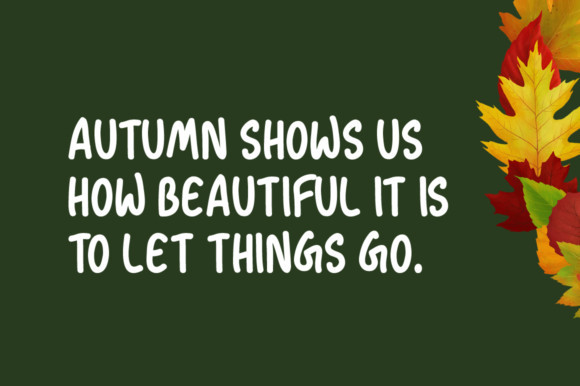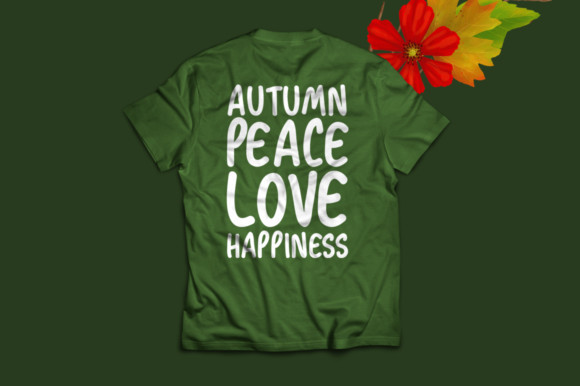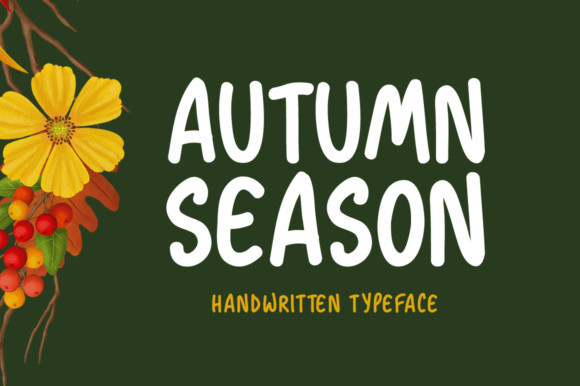
Autumn Season Font
Autumn Season is a clean and friendly display font that celebrates all things fall. Turn you next autumn project into a piece of art with this cute font.